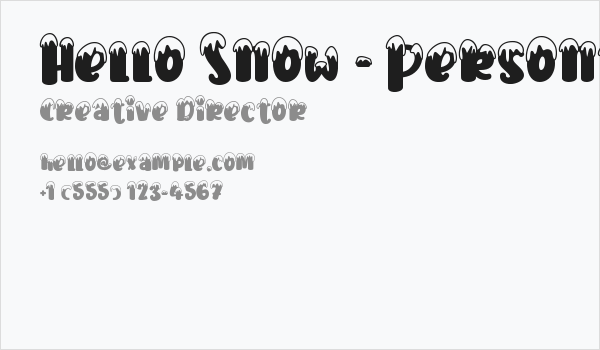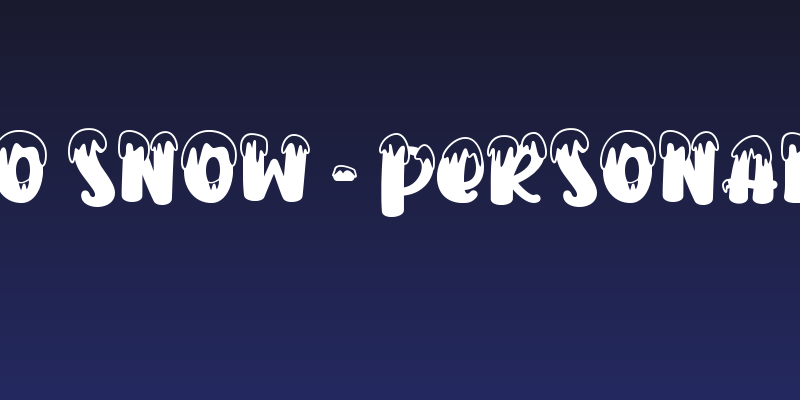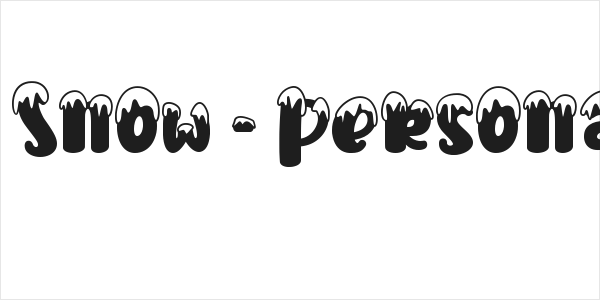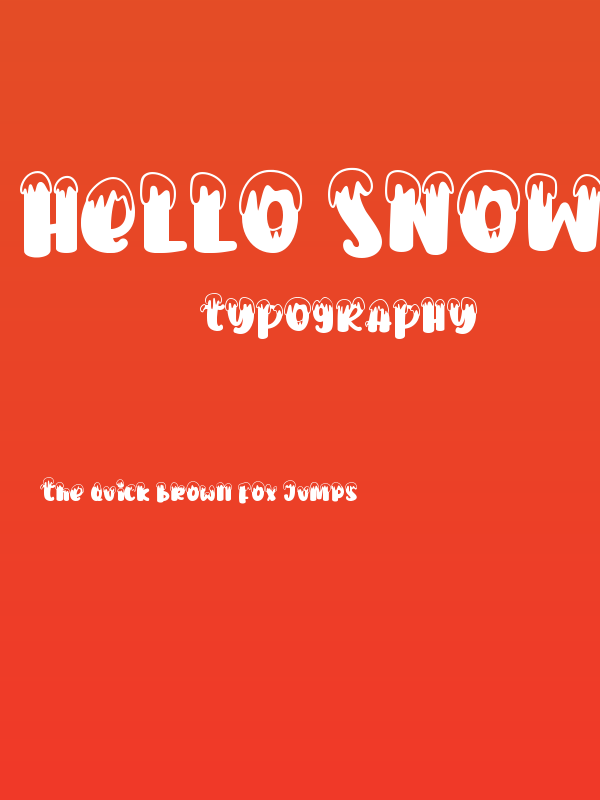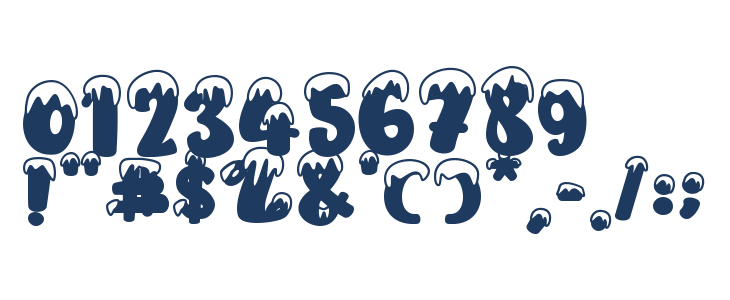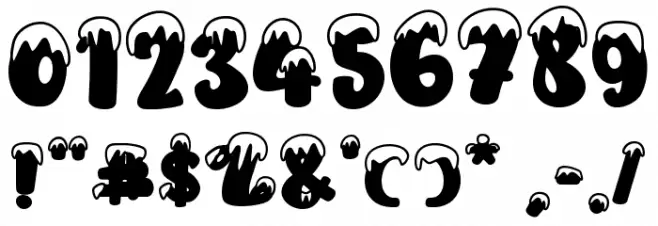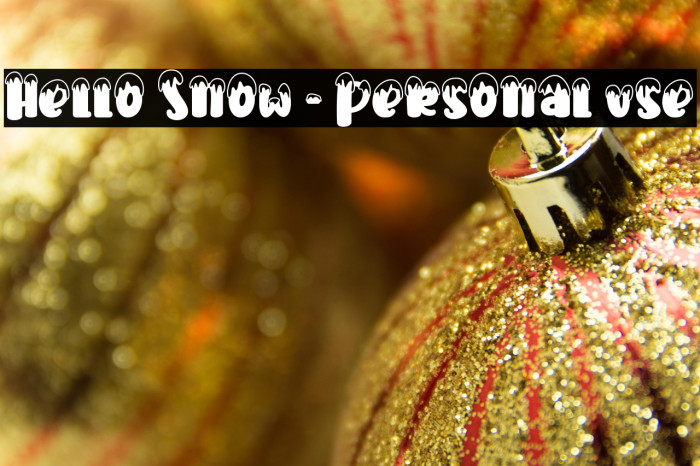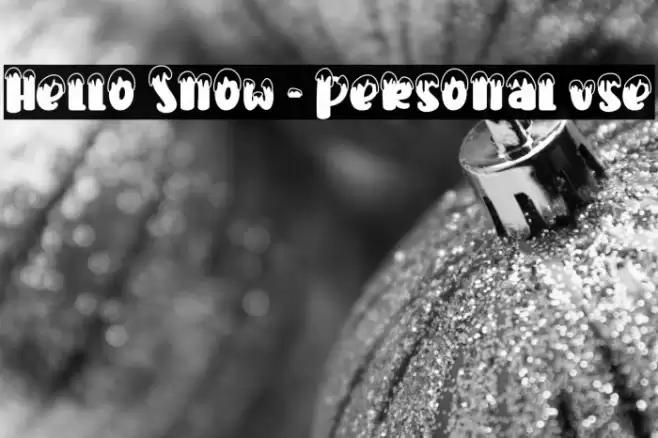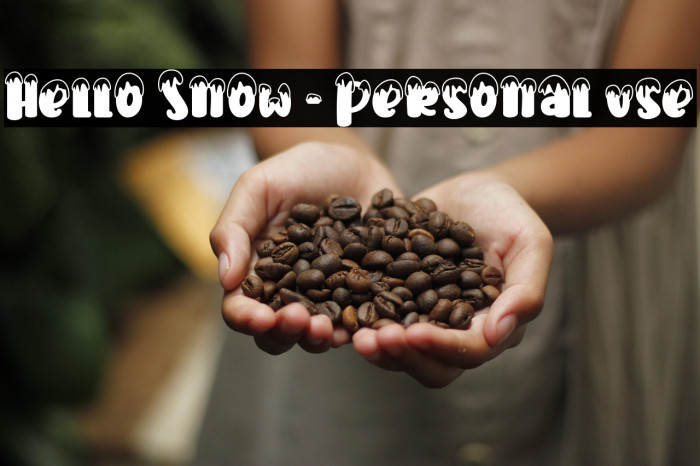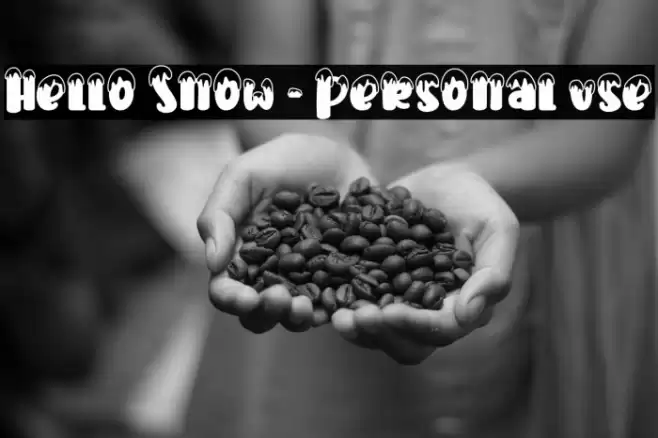
Hello Snow - Personal use Font
Hello Snow - Personal use Description
This playful and whimsical font features bold, rounded characters with a distinctive snow-capped design. Each letter appears as if it's topped with a layer of snow, creating a festive and wintery feel. The characters are thick and substantial, providing a strong visual impact. The font maintains a consistent style across uppercase, lowercase, numbers, and special characters, making it versatile for various design needs. The snow detail adds a unique touch, making it ideal for holiday-themed projects.
| Proposed Projects | Ideal for holiday cards, winter event posters, festive banners, and seasonal branding. |